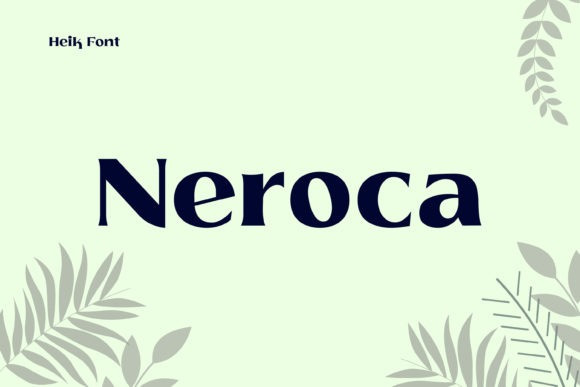
Heik Font
Heik is a cool, bold and modern serif font. This font is ideal for writing web designs, business cards, or pretty much anything else that requires a unique touch.